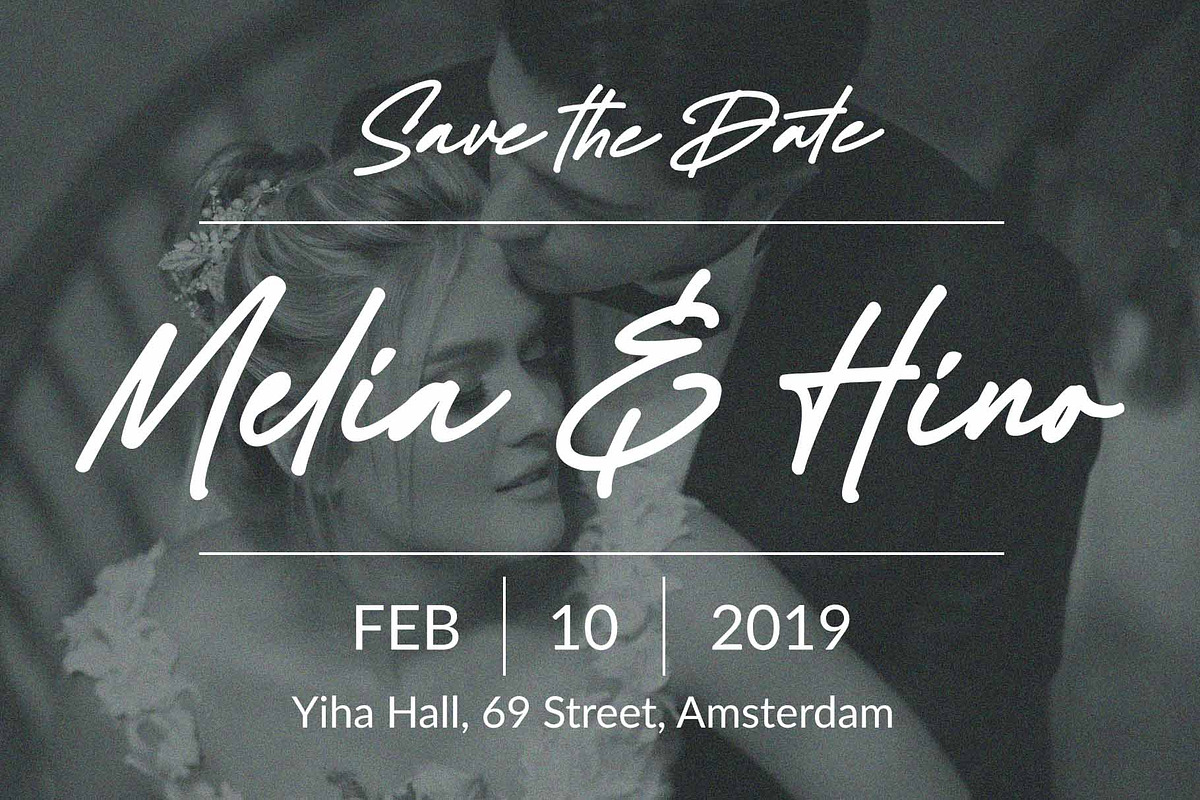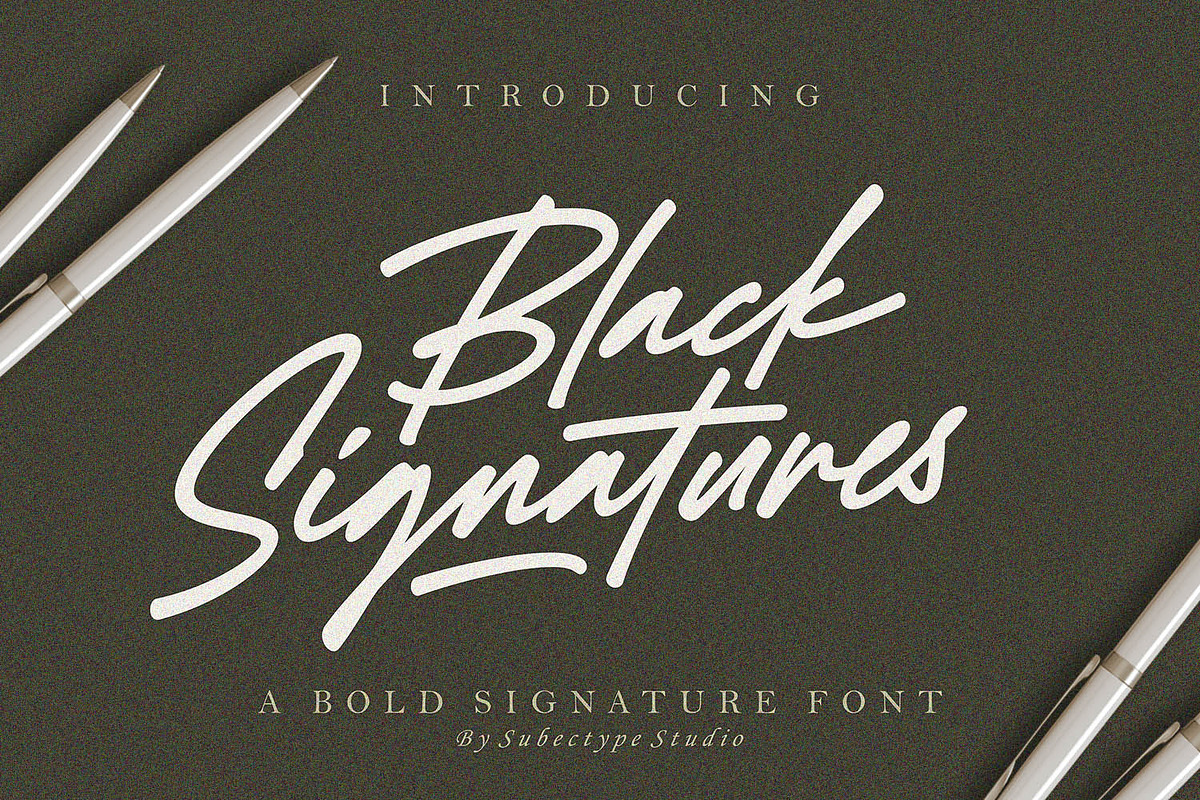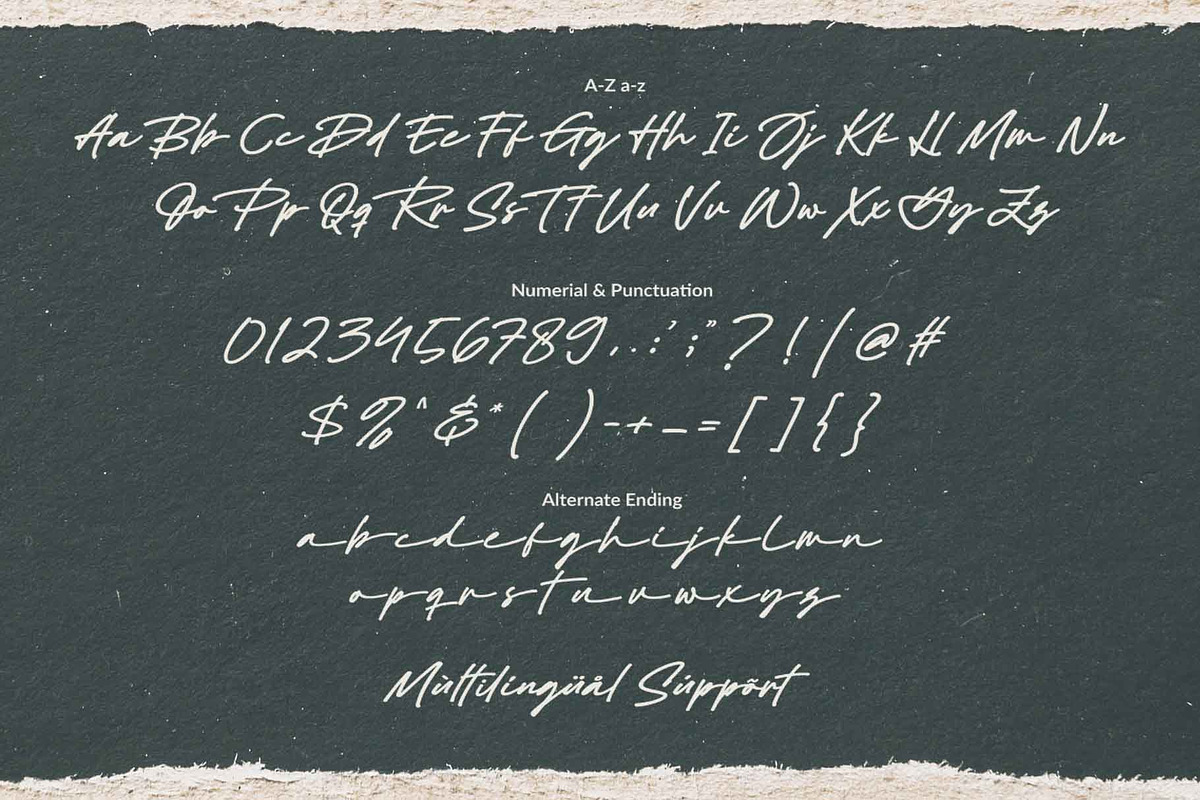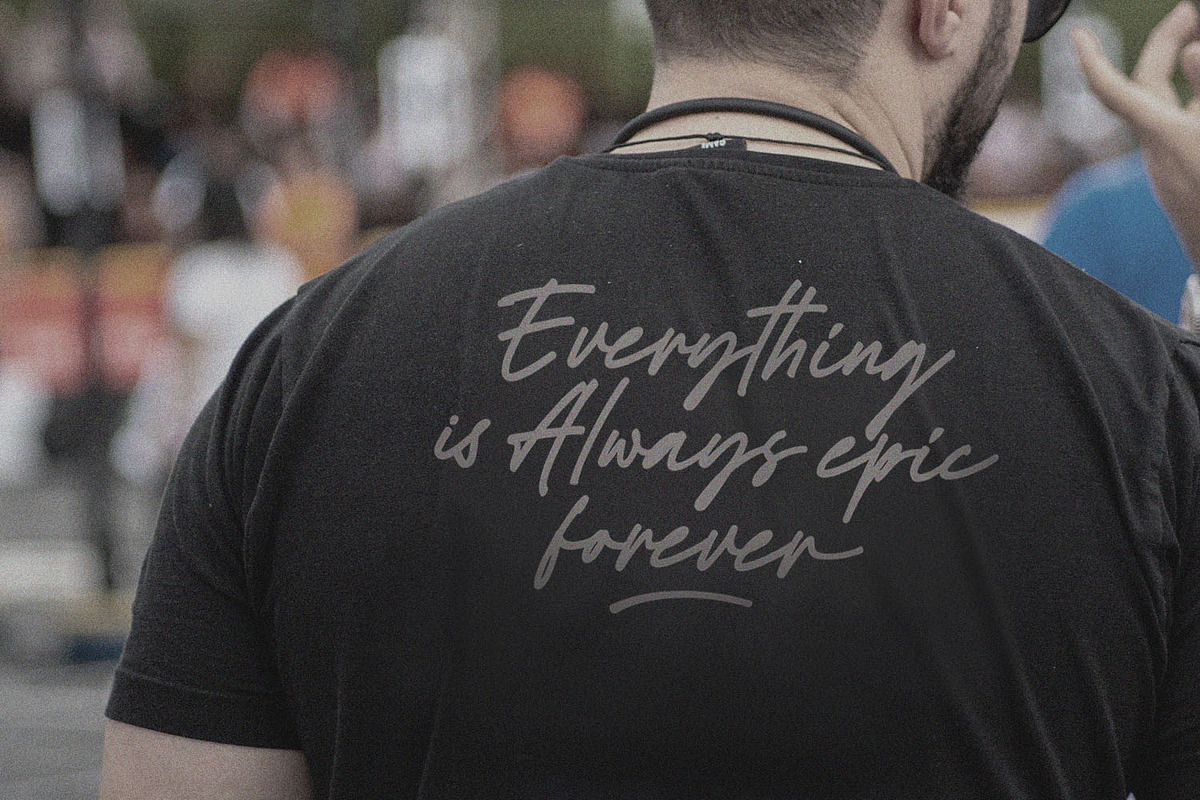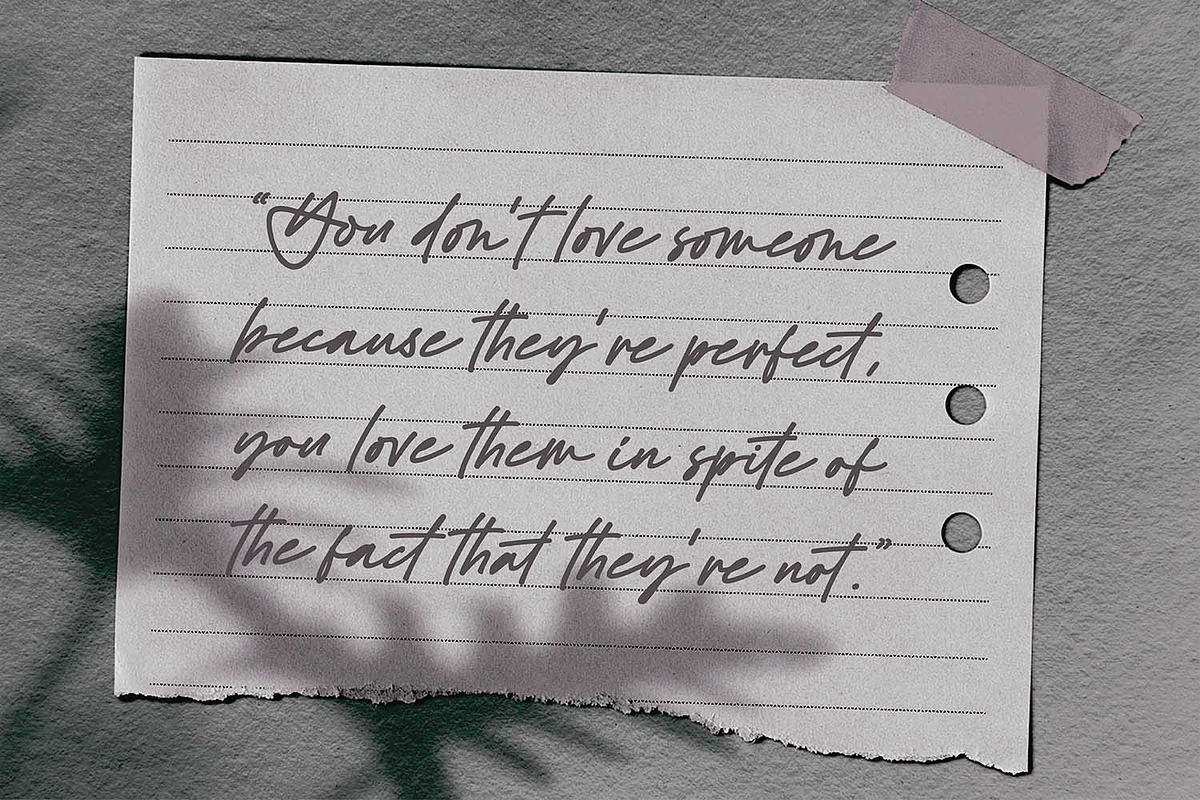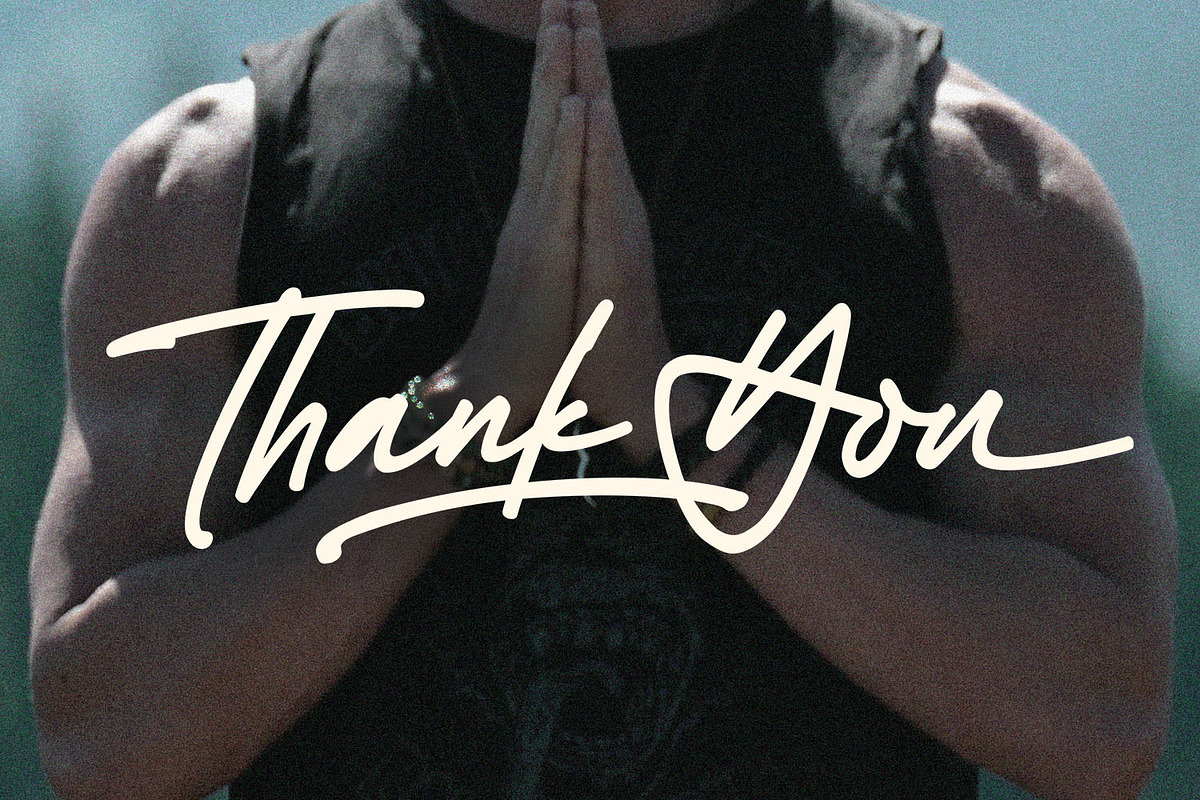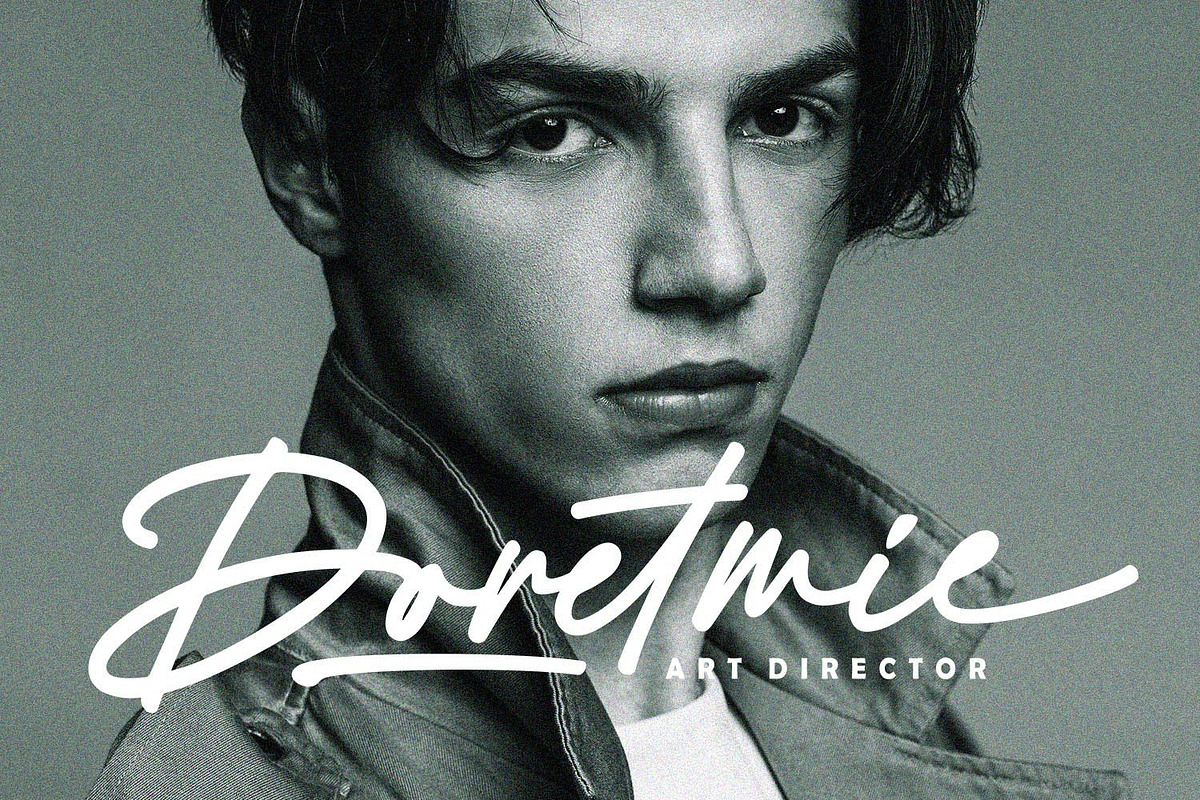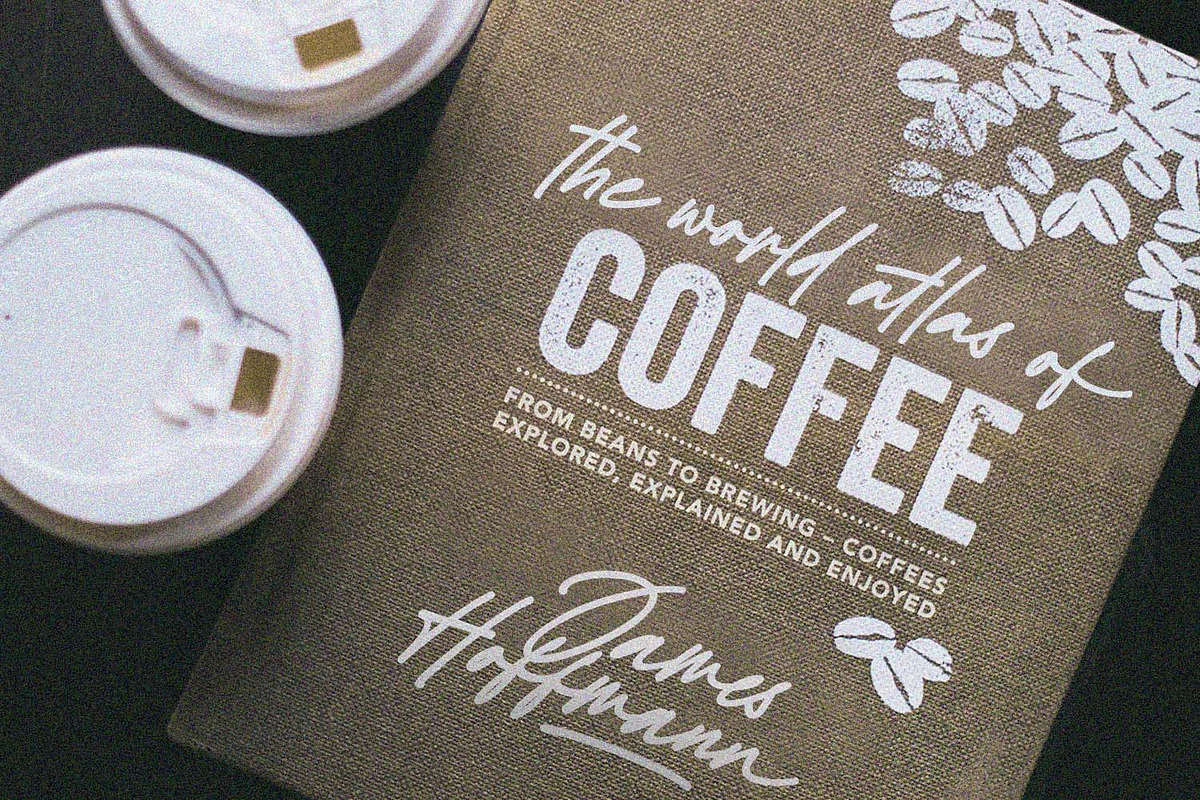
Black Signatures - Signature Font
'Black Signature' is a Bold Signature Font script with a natural & stylish flow. This collection of scripts is perfect for personal branding. It was made with the intention to be used for your personal branding. But, this works well for many applications. Everything from personal branding, photography signature, advertising could benefit from this collection of this bold signature fonts.
it has an extensive lingual support, covering European and Asian Latin scripts. The font contains all characters you'll ever need, including all punctuation and numbers.